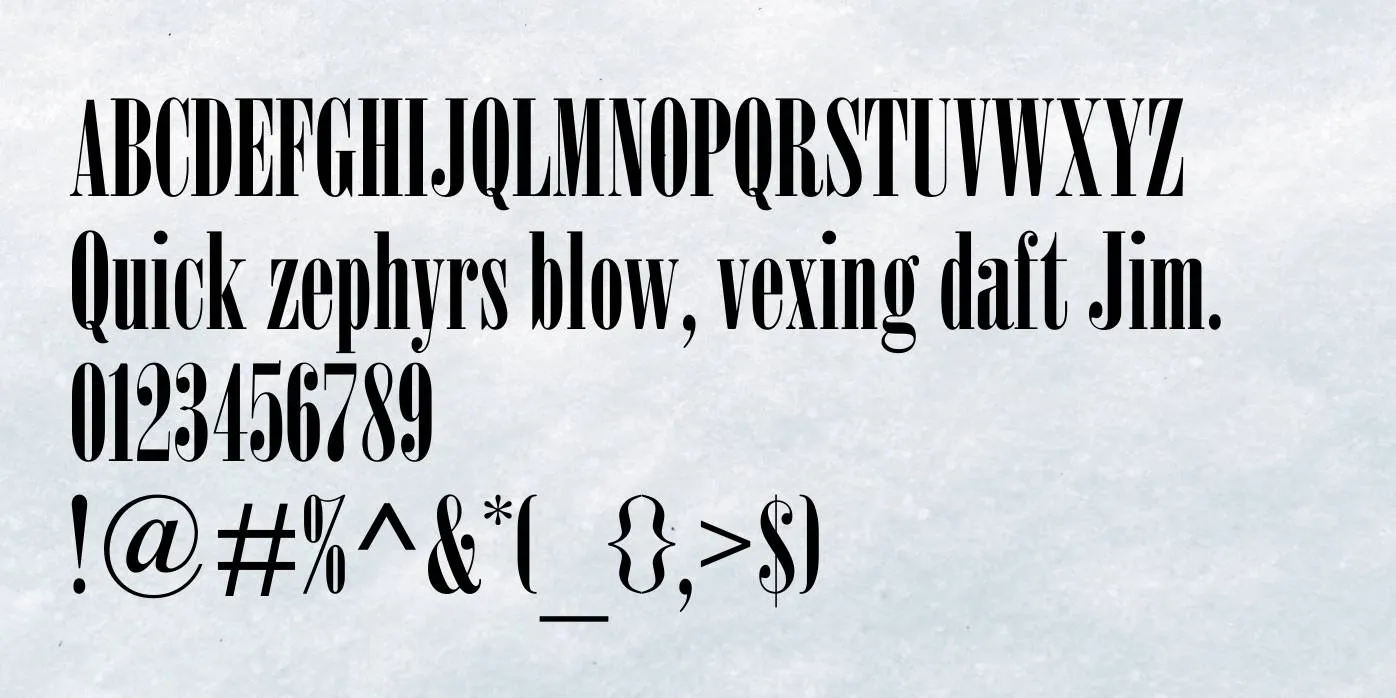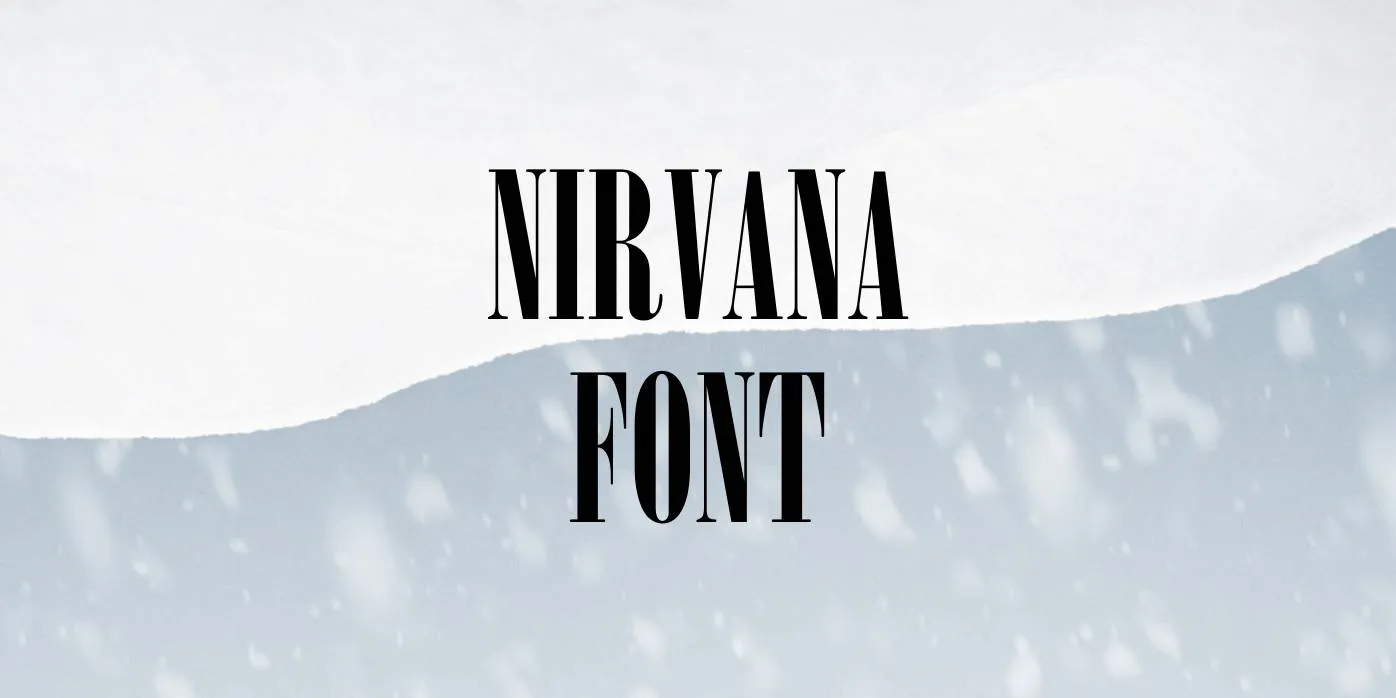
Nirvana Font
Introducing the best typeface that has basic characters with a little bit of geometrical touch and great typography font that is Nirvana Font. It belongs to a Serif typeface family. It is the inspiration of Nirvana Rock Band that may be established in America in 1987. Nirvana Font has very elegant display characters and if we talk about its glyphs the font family has unique 255 glyphs and 256 characters in a row.
The font family has TTF features and is free for personal use because the owner did not attach his name with this typeface. It supports many foreign languages for international workers. This typeface has Uppercase Letters, Lowercase Letters, Numbers, and Numerals and also great symbols as well. And all the characters have beautiful serif shapes with rounded tails and terminals as well.